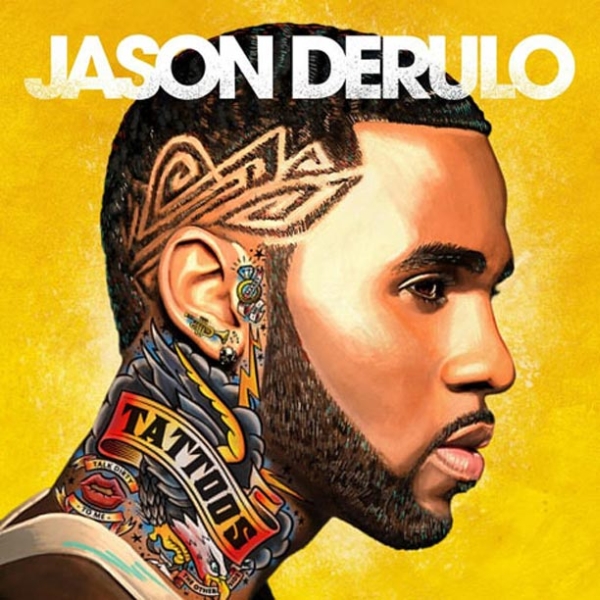
Tattoos Font
Fonts in UseTattoos is the third studio album by Jason Derulo, released in 2013. The album features the hit singles "The Other Side", "Talk Dirty", and "Wiggle".
The geometric sans font used on the cover for the singer's name is likely ITC Avant Garde Gothic Bold, originally designed by Herb Lubalin and Tom Carnase. You can find more details about the font here.